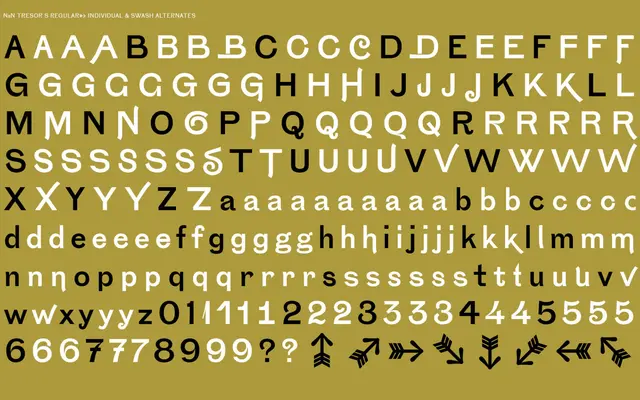
NaN Tresor
NaN · Christoph Koeberlin · 2018
NaN Tresor specimen from NaN
A historical serif revival by Christoph Koeberlin that deliberately preserves contradictory glyph structures across three optical sizes rather than rationalising them into a single system.
Rather than selecting one authoritative form for each character, Koeberlin collected as many historical and fictional variants as possible, giving each style up to eight alternates per glyph. Three optical cuts run from S, spaced for text and long-form reading with thin joins, through M as a workhorse across all scales, to L which ships with the most exuberant alternates by default for titling and display. The Complete Family adds Tresor Swash, an alternate version of the L cut with ornamental caps and swashes active from the outset.
An anachronous revival drawing on historical serif structures, with multiple glyph variations per character across optical sizes; its bracketed serifs, ink-trap joins and classical proportions place it firmly in the transitional serif tradition.